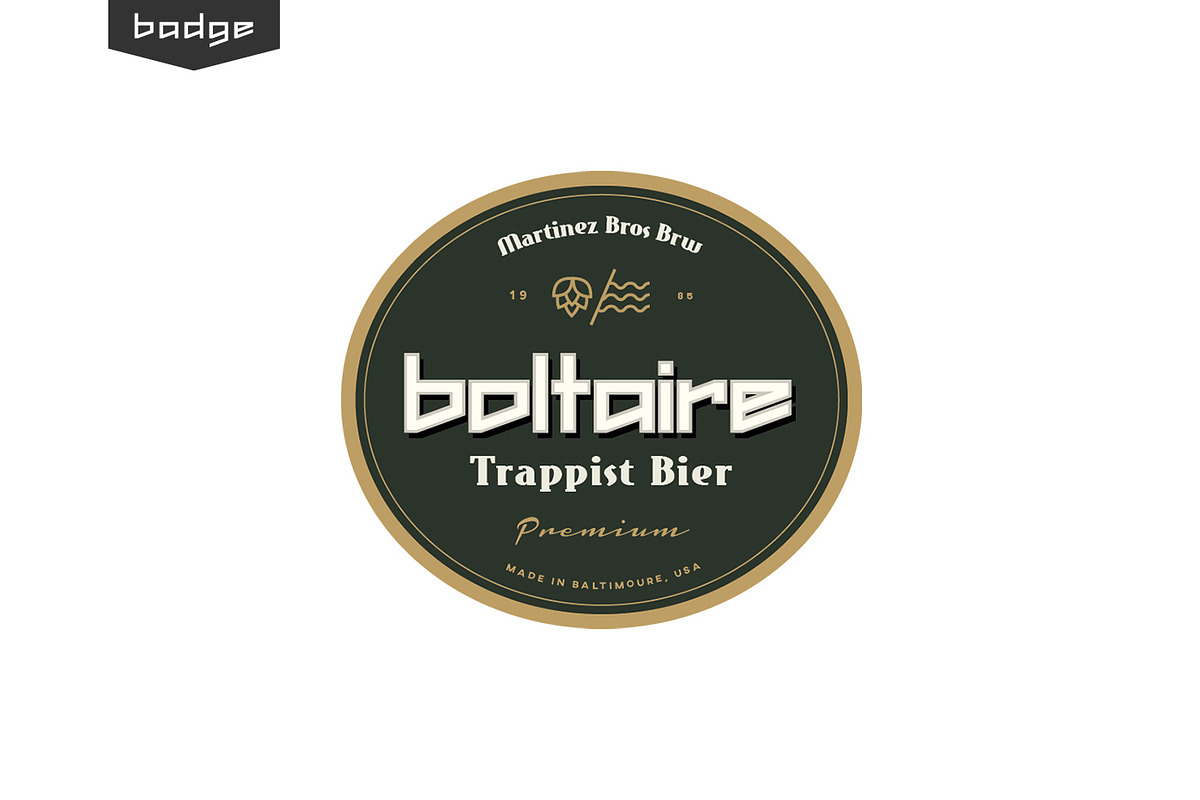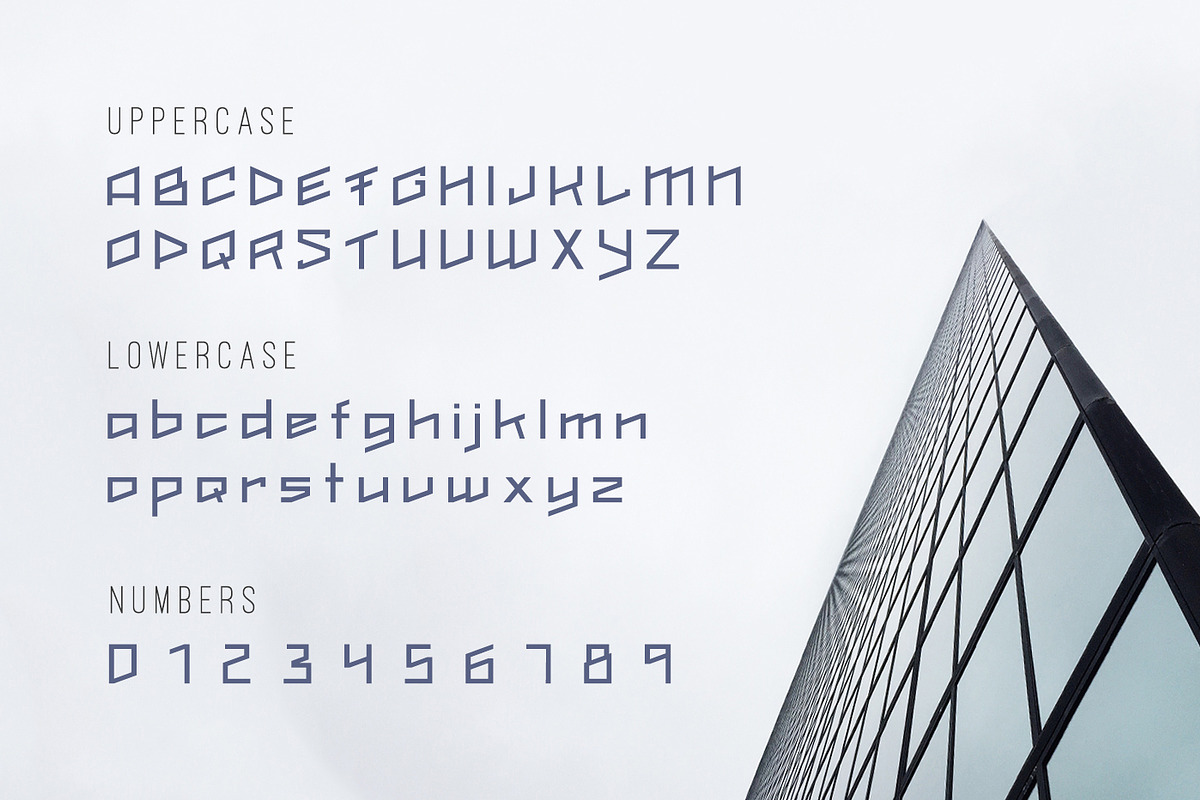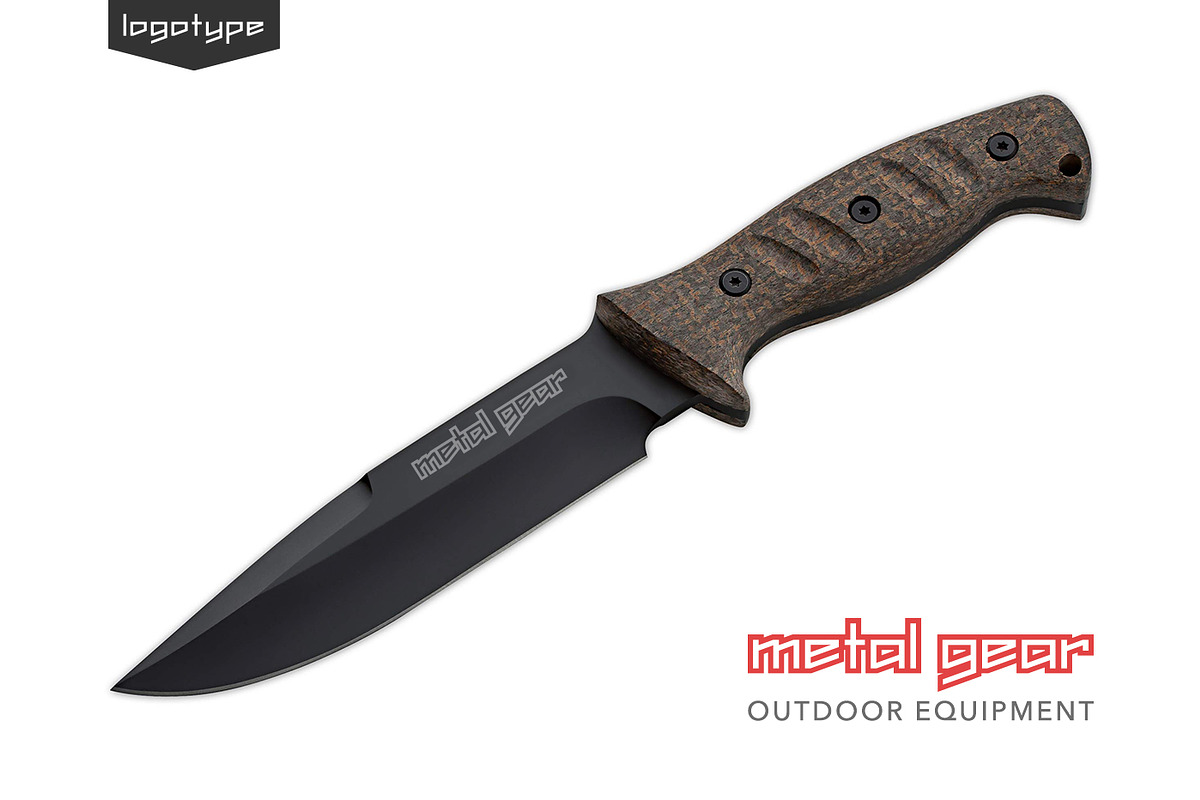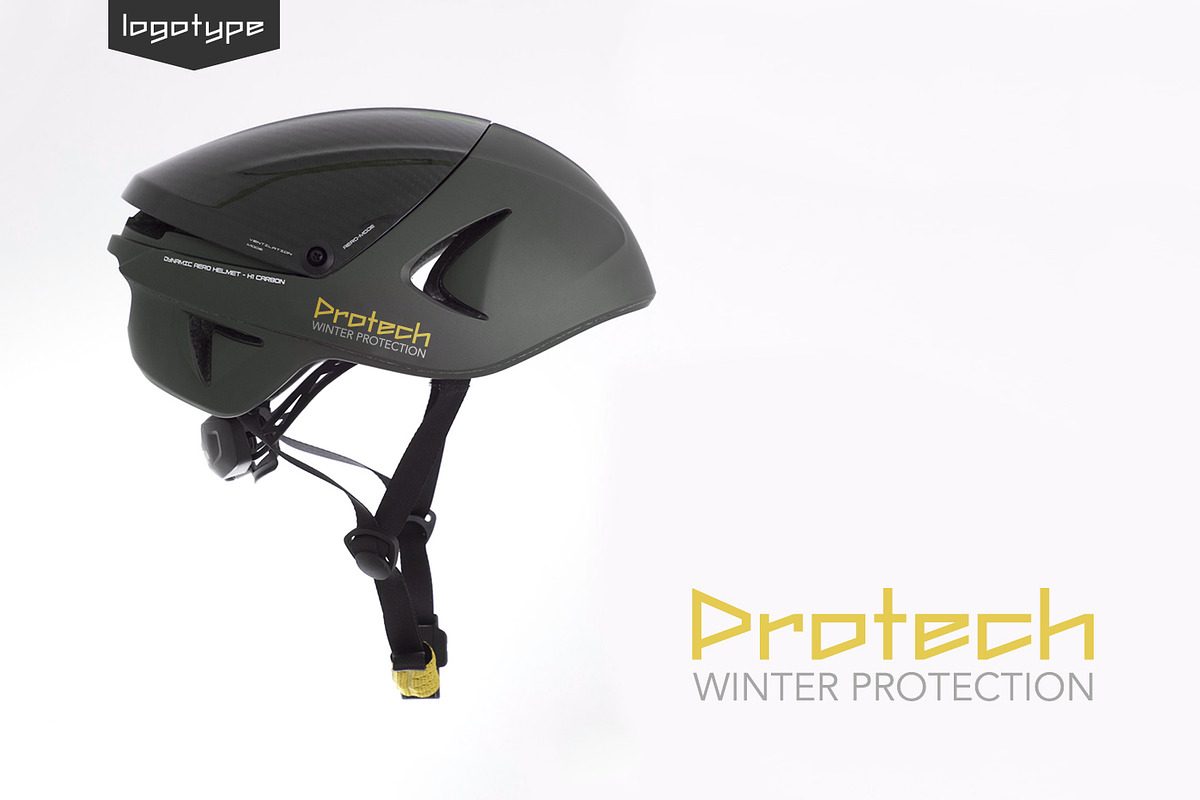
Akido Edgy Modern Logo Font Logotype
Akido Edgy Modern Logo Font Logotype by Alexandrumolnar is a font selected for branding, posters, packaging, typography.
Why Akido Edgy Modern Logo Font Logotype is worth a look
Akido Edgy Modern Logo Font Logotype by Alexandrumolnar fits naturally into Branding, posters, packaging, typography.